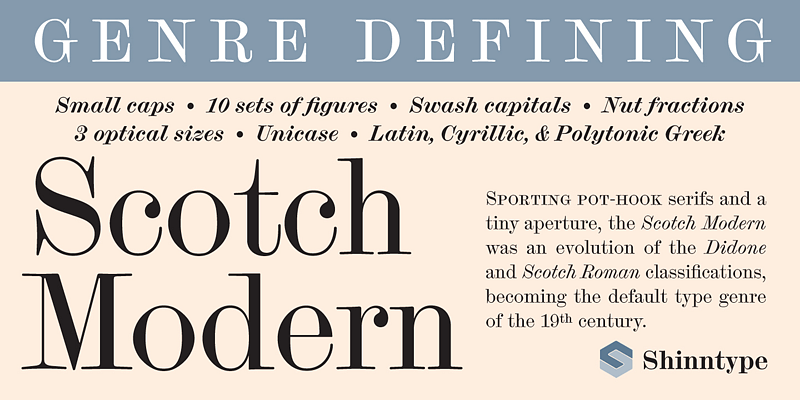
Scotch Modern Font Free Download is a refined and sophisticated serif typeface that blends traditional characteristics with modern elegance. With its high contrast, sharp serifs, and beautifully proportioned letterforms, this font is perfect for editorial design, branding, book covers, and any project that demands a touch of class and professionalism.
Scotch Modern brings both style and legibility to your work, making it ideal for headlines, body text, and print materials that need to convey authority and timeless sophistication. It is compatible with design software like Adobe Illustrator, InDesign, and Photoshop, making it easy to incorporate into both digital and print formats.